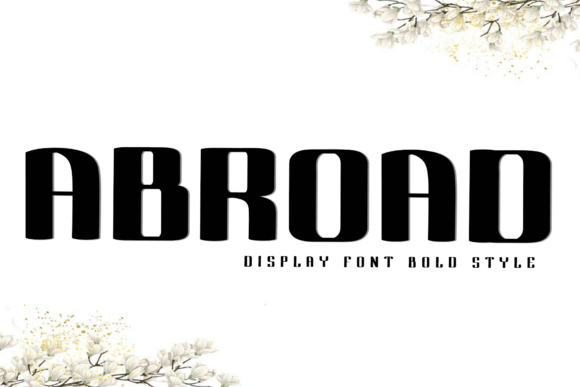
The Magic of Abroad Font: A Festive Holiday Companion
It’s that time of the year again – the holiday season is just around the corner, and as designers, crafters, and creative hobbyists, we’re on the lookout for the perfect typography to make our projects shine. I still remember the year I spent hours scouring font libraries for the ideal festive font for a client’s holiday card project. The brief was simple: create a design that captured the essence of the season, with a dash of whimsy and a lot of cheer. That’s when I stumbled upon Abroad Font, a true gem that instantly brought my design to life.
An Honest Review of Abroad Font
• ✨ Festive and Merry: Abroad Font embodies the spirit of the holiday season with its decorative elements and whimsical flair.
• 🎉 Perfect for Holiday Projects: Whether it’s greeting cards, gift tags, or holiday-themed projects, Abroad Font brings a cheerful and nostalgic ambiance to your designs.
While Abroad Font is a stunning addition to any design project, there are a few things to keep in mind:
• ⚠️ Legibility at Small Sizes: As with many decorative fonts, Abroad Font may lose legibility at very small sizes. It’s best used at larger sizes where its details can shine.
• 🤔 Pairing with Other Fonts: Due to its bold and decorative nature, Abroad Font works best as a headline or accent font. Pair it with a simpler font for body text to create visual balance.
The Story Behind Abroad Font
Abroad Font was inspired by the magical nights of December, where twinkling lights and snowy landscapes create a backdrop for joy and celebration. The designer aimed to capture the whimsical and festive atmosphere of holiday markets and snowy streets, where every moment feels like a scene from a fairy tale. With Abroad Font, you bring a piece of that enchantment into your designs.
Font Name Abroad Font
Author PiPi Creative